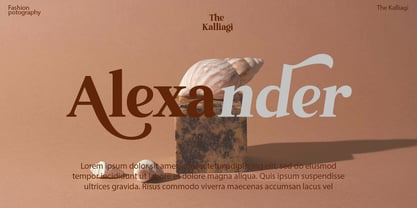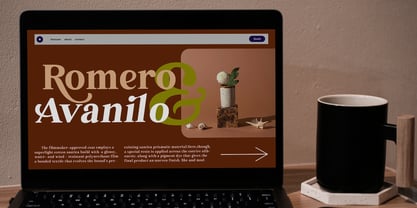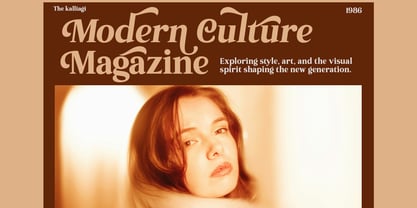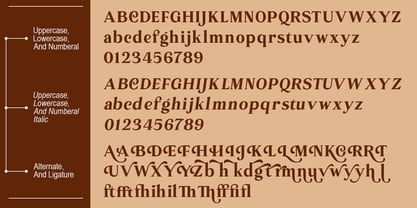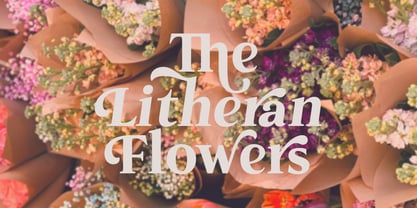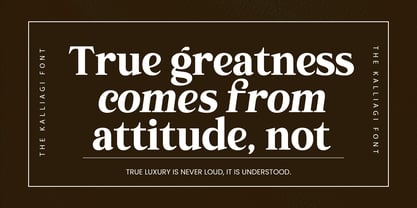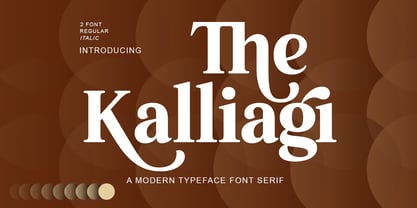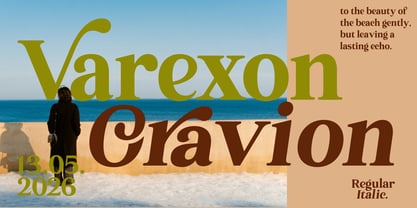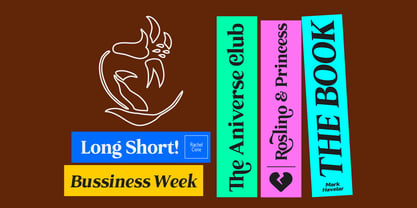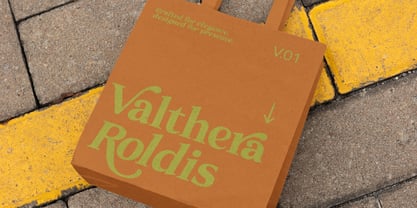
The Kalliagi
von Propertype
Die Schriftfamilie The Kalliagi wurde von Nadia Auliana entworfen und von Propertype veröffentlicht. The Kalliagi enthält 13 Stile und Familienpaketoptionen. Mehr über diese Familie
The Kalliagi is a serif font with a luxurious, elegant, modern, unique, and classy look. This font is specifically designed for luxury-themed projects, branding projects, magazines, social media, logos, website headers, or simply as a stylish text overlay on any background image, and many more that require a luxurious touch. The Kalliagi includes a complete set: Swashes, Ligature holders, optional ligatures, upper and lower case letters, multilingual characters, numbers, and punctuation. If you have any further questions, please feel free to message me :) That's all! Enjoy using The Kalliagi!
Designer: Nadia Auliana
Foundry: Propertype